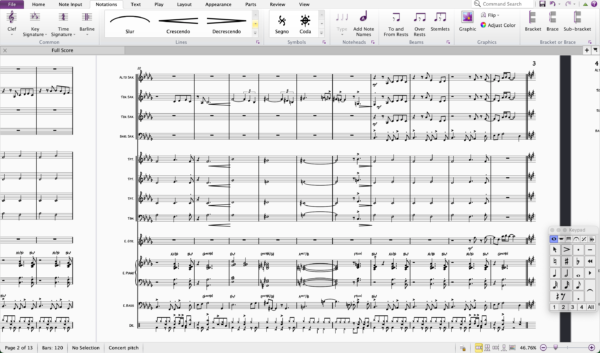
Rhapsody Fonts Set for Sibelius
12 fonts for a Professional Handwritten Jazz Scores!
Rhapsody is handwritten music and text fonts for Dorico with lots of personality. Nothing else will get you as close to the look and feel of the classic Broadway scores in the style of West Coast copyists.